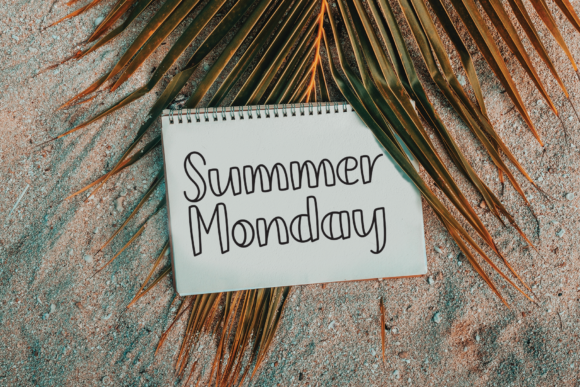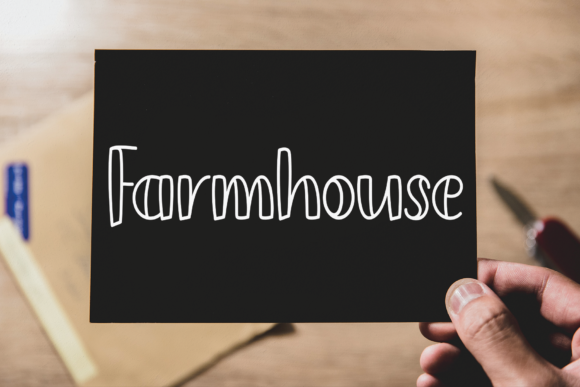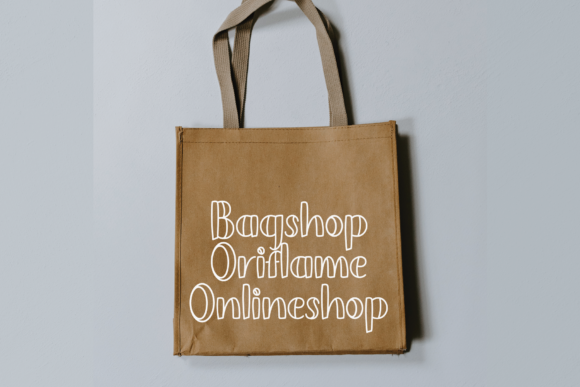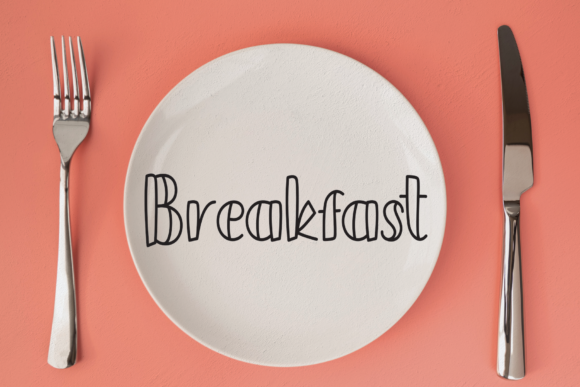
Beehoney Font: Elevate Your Designs with Elegant Handwritten Typography
Are you a designer or crafter looking for a beautiful and flowing handwritten font to elevate your projects? Look no further than Beehoney Font! This stunning font is perfect for creating impressive typography for a wide range of applications, from wall hangings and wedding invitations to social media posts and product packaging.
What is Beehoney Font?
Beehoney Font is a gorgeous handwritten font that exudes elegance and sophistication. Its flowing lines and curves make it perfect for creating beautiful and eye-catching typography that will capture the attention of your audience. Whether you’re designing a wedding invitation, a social media post, or a product label, Beehoney Font is sure to impress.
Uses for Beehoney Font
Beehoney Font is incredibly versatile and can be used for a wide range of projects, including:
- Wall hangings and signs
- Social media posts and logos
- Product packaging and design
- Labels and branding
- Photography and watermarks
- Invitations and event materials
- Stationery and paper crafts
Why Choose Beehoney Font?
So why choose Beehoney Font for your next project? Here are just a few reasons:
- Unique and eye-catching: Beehoney Font is a one-of-a-kind font that will set your designs apart from the crowd.
- Elegant and sophisticated: The flowing lines and curves of Beehoney Font give it an air of elegance and sophistication that’s perfect for high-end designs.
- Versatile: Beehoney Font can be used for a wide range of projects, from digital designs to print materials.
Tips for Using Beehoney Font
Here are a few tips for getting the most out of Beehoney Font:
- Use it sparingly: Beehoney Font is a statement font, so use it sparingly to add impact to your designs.
- Experiment with colors: Beehoney Font looks great in a variety of colors, so don’t be afraid to experiment and find the perfect hue for your design.
- Pair it with other fonts: Beehoney Font pairs well with a variety of other fonts, so try combining it with a sans-serif font for a modern look.
If you’re looking for a beautiful and flowing handwritten font to elevate your designs, look no further than Beehoney Font. With its elegant lines and curves, this stunning font is perfect for creating impressive typography for a wide range of applications. Whether you’re a designer or crafter, Beehoney Font is sure to become a favorite in your toolkit.